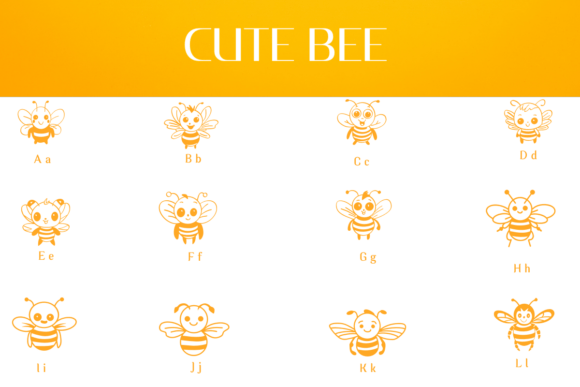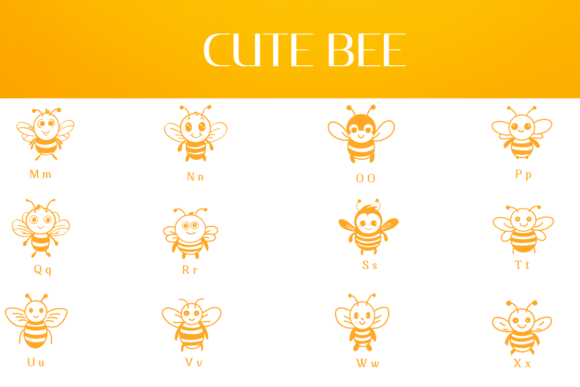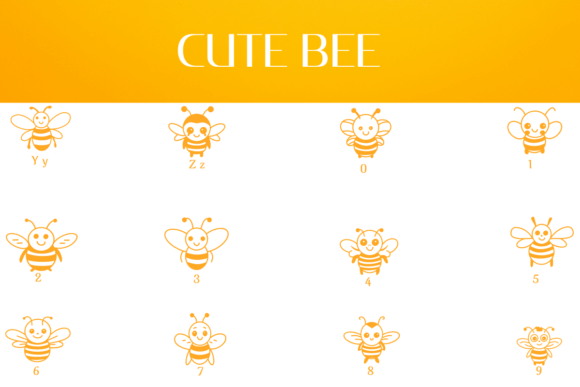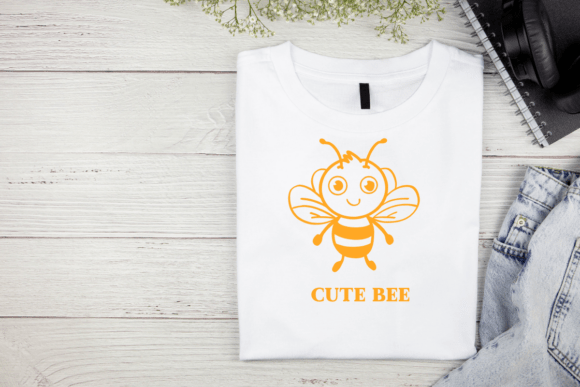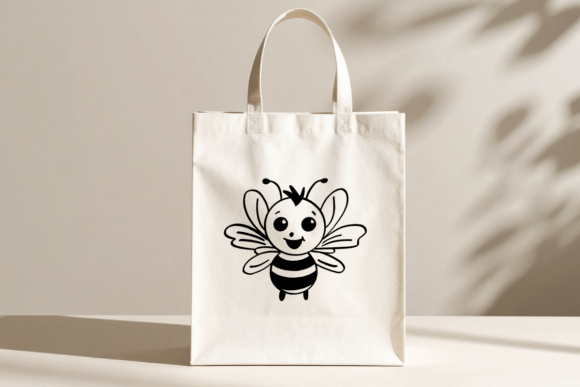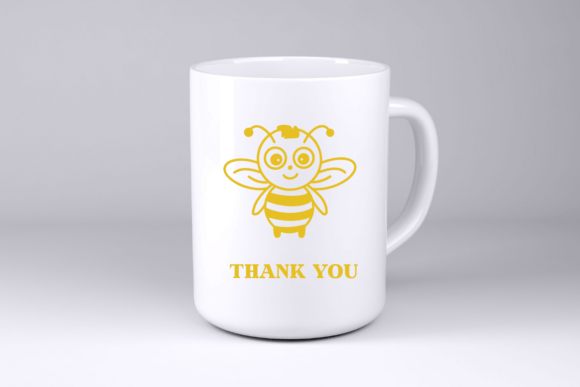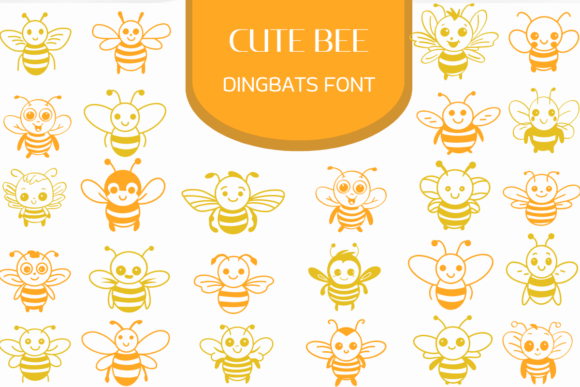
Cute Bee Font: The Sweetest Addition to Your Design Collection
Are you a designer, crafter, or DIY enthusiast looking for a unique and charming font to add to your collection? Look no further than the Cute Bee Font! This adorable dingbats font is perfect for a variety of creative projects, from personal notes and diaries to professional designs and marketing materials.
What is Cute Bee Font?
Cute Bee Font is a delightful dingbats font that features an assortment of bee-themed characters, including bees, honeycombs, flowers, and more. The font is designed to be fun, playful, and visually appealing, making it perfect for projects that require a touch of whimsy and charm.
Uses for Cute Bee Font
One of the best things about Cute Bee Font is its versatility. You can use it for a wide range of projects, including:
- Taking notes: Add a touch of personality to your notes and journals with Cute Bee Font.
- Writing a diary: Make your diary entries more fun and engaging with this charming font.
- Making greeting cards: Create one-of-a-kind greeting cards for special occasions, such as birthdays, weddings, and holidays.
- Designing banners: Use Cute Bee Font to create eye-catching banners for events, promotions, or social media campaigns.
- Creating content: Add a touch of whimsy to your blog posts, articles, or social media content with Cute Bee Font.
- Designing mugs, cards, shirts, and more: This font is perfect for creating custom merchandise, such as mugs, cards, shirts, and other promotional items.
- Stationery: Use Cute Bee Font to create custom stationery, including letterheads, envelopes, and notecards.
- Social media posts: Make your social media posts stand out with Cute Bee Font.
Why Choose Cute Bee Font?
So why choose Cute Bee Font over other fonts? Here are just a few reasons:
- Unique and eye-catching: Cute Bee Font is a one-of-a-kind font that will add a touch of personality to your designs.
- Versatile: This font can be used for a wide range of projects, from personal to professional.
- High-quality: This font is designed to be high-quality and visually appealing, making it perfect for professional designs.
Tips for Using Cute Bee Font
Here are a few tips for getting the most out of Cute Bee Font:
- Experiment with different sizes and colors: Try out different sizes and colors to see what works best for your project.
- Mix and match characters: Cute Bee Font features a range of characters, so don’t be afraid to mix and match to create unique designs.
- Use it with other fonts: Cute Bee Font pairs well with other fonts, so try combining it with different fonts to create interesting contrasts.
- Q: What type of font is Cute Bee Font?
- A: Cute Bee Font is a dingbats font.